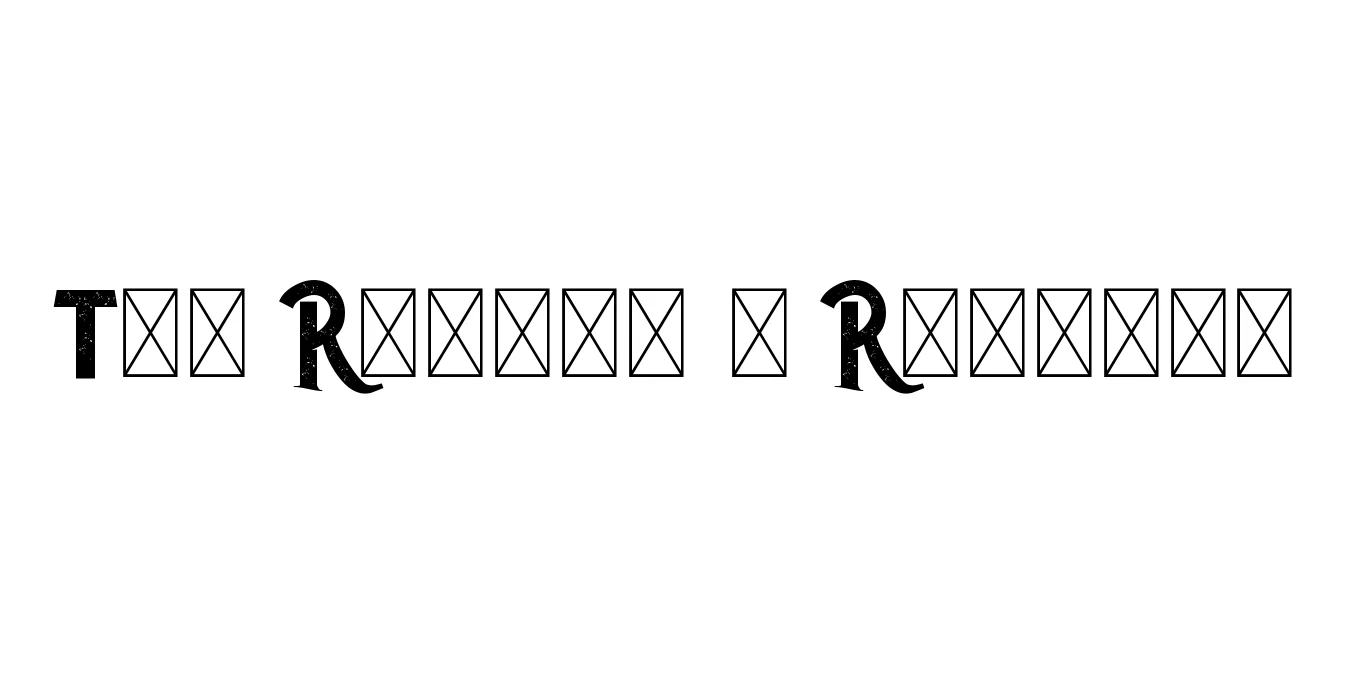
The Rustic - Regular
Designed by Letterhend Studio
| Category | Handwritten Script |
| Designer | Letterhend Studio |
The Rustic - Regular was conceived during the contemporary resurgence of heritage-inspired design, drawing inspiration from the tactile nature of early 20th-century woodblock prints and hand-lettered signage. It serves as a bridge between historical artisanal aesthetics and modern digital precision, aiming to capture the 'perfect imperfections' found in manual craftsmanship. The font’s development focused on maintaining an organic flow while providing the necessary OpenType features for a seamless typographic experience in high-end branding environments.
From a technical standpoint, The Rustic - Regular exhibits a medium visual weight that achieves a high degree of legibility despite its textured, distressed edges. The letterforms are characterized by a generous x-height which allows for better readability in sub-headers, preventing the counters from closing up under low-resolution conditions. The rhythm of the strokes follows a naturalistic cadence, with varied terminal shapes that mimic the pressure of a brush. Its kerning is intentionally tight to emphasize its cohesive, hand-penned structure, yet it retains enough internal white space to remain effective across both digital displays and tactile print mediums.
The Rustic - Regular Best Uses
Highly effective for boutique logos, artisanal coffee shops, and craft breweries.
Works perfectly on organic product labels that require a human touch.
Excellent for headline use in lifestyle magazines or cookbook titles.